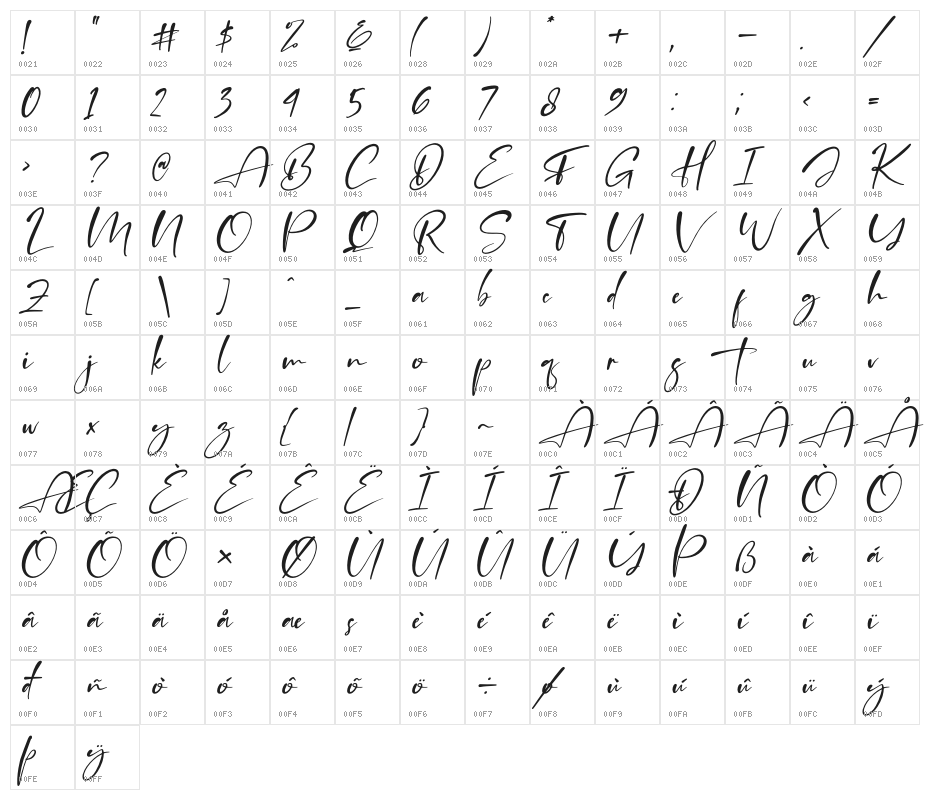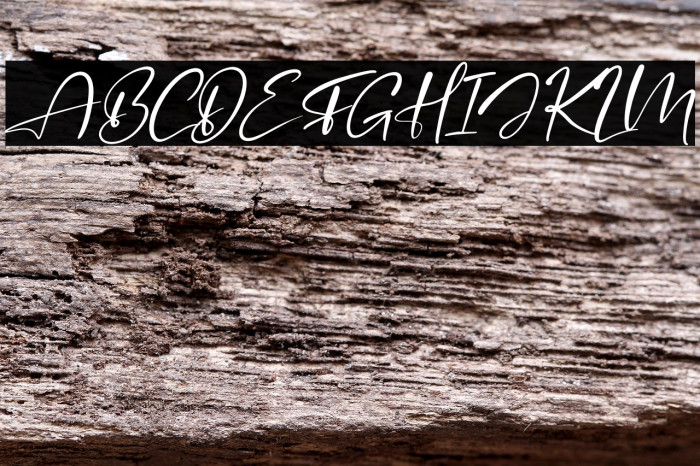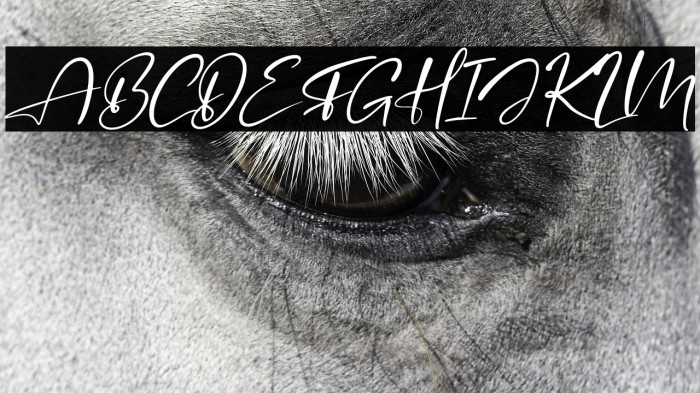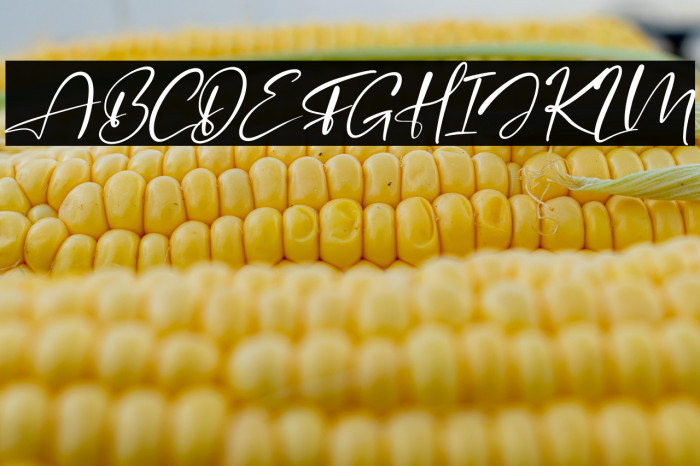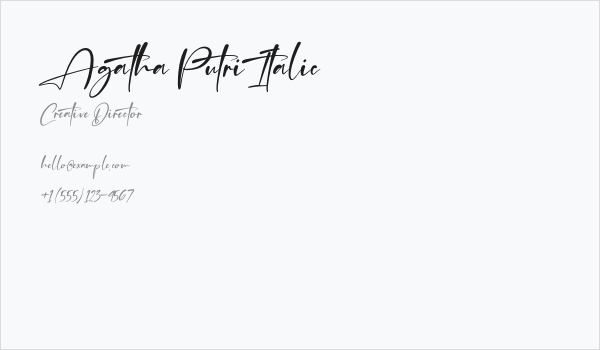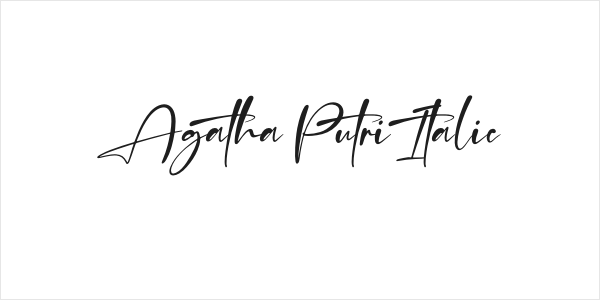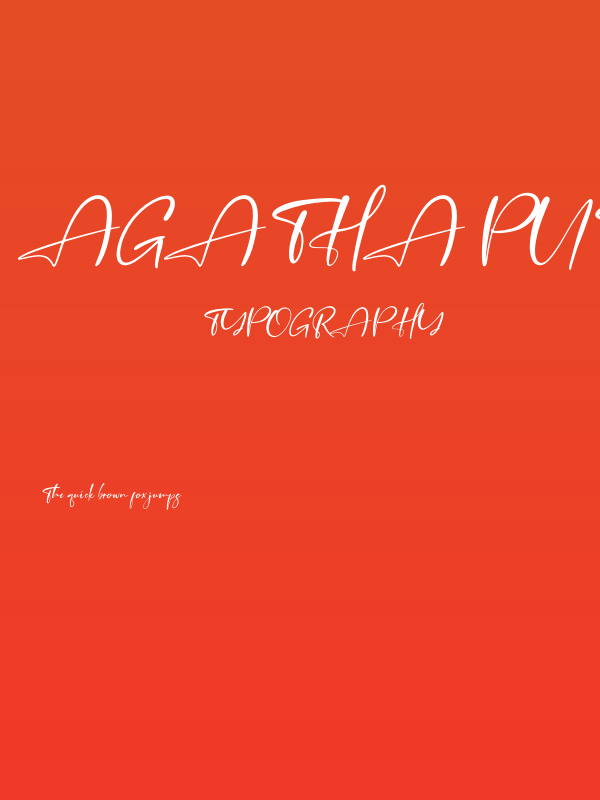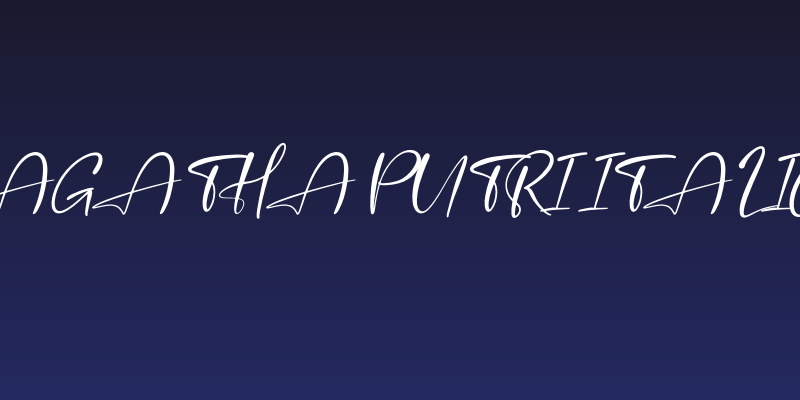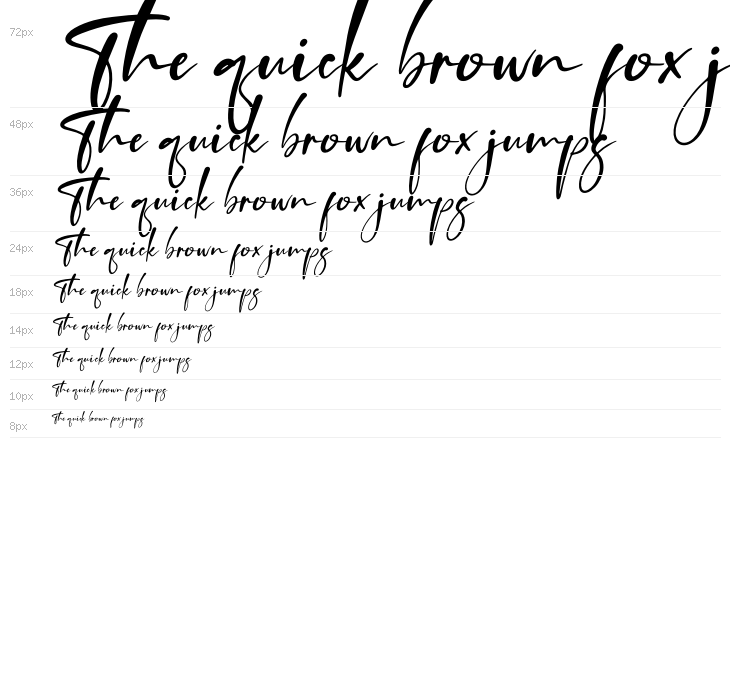
Agatha Putri Italic Font
Agatha Putri Italic Description
This font features a dynamic and flowing script style, characterized by its elegant and fluid strokes. The letters are interconnected, creating a sense of continuity and movement. The uppercase letters are bold and expressive, while the lowercase letters maintain a graceful and cursive appearance. The numerals and special characters follow the same fluid design, ensuring consistency across all elements. This font exudes a sense of sophistication and creativity, making it ideal for projects that require a personal and artistic touch.
| Proposed Projects | Ideal for wedding invitations, branding, greeting cards, and artistic projects that require a personal touch. |